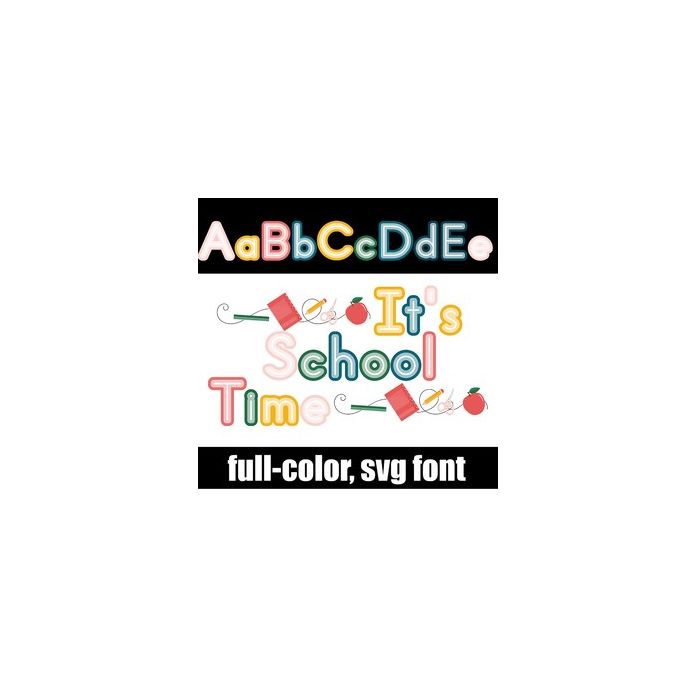
This full-color font features traditional style print letters with a fun back-to-school swoosh of school supplies you can access by typing the greater than and less than glyphs. There is an alt case w/ additional colors you can access through your system or Silhouette's glyph map.